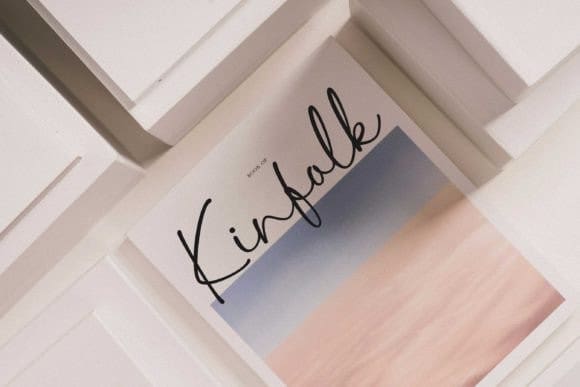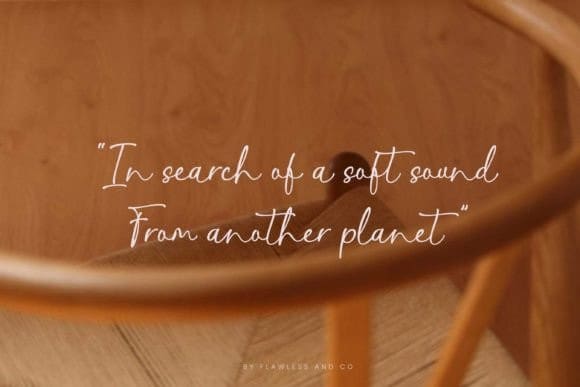
Senolia Script Font
Senolia Script Font a beautiful calligraphy font. Embrace the artistry of handwritten elegance with Senolia Script a stunning calligraphy script font that epitomizes grace and sophistication. Crafted with precision and finesse, Senolia transforms every stroke into a symphony of beauty, making it the perfect choice for wedding invitations, branding, and upscale designs.